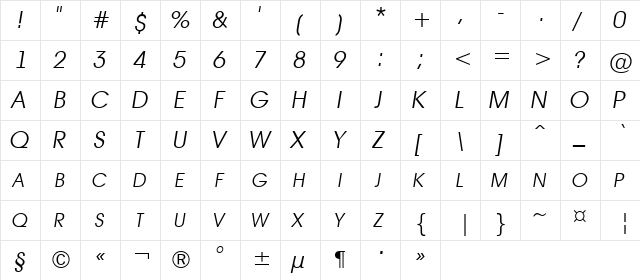
a_AvanteTitlerCpsUpC LightItalic Font Preview
Design Context for a_AvanteTitlerCpsUpC Typeface
a_AvanteTitlerCpsUpC takes a measured approach to typography — its balanced proportions and neutral character make it a reliable workhorse for both digital and print work. Its italic angle brings a sense of urgency and motion to the letterforms. The delicate stroke weight brings airiness and refinement to layouts.
Pro Tip: Try a_AvanteTitlerCpsUpC for annotation and caption copy alongside an upright companion — the contrast in angle creates a dynamic but ordered typographic system.